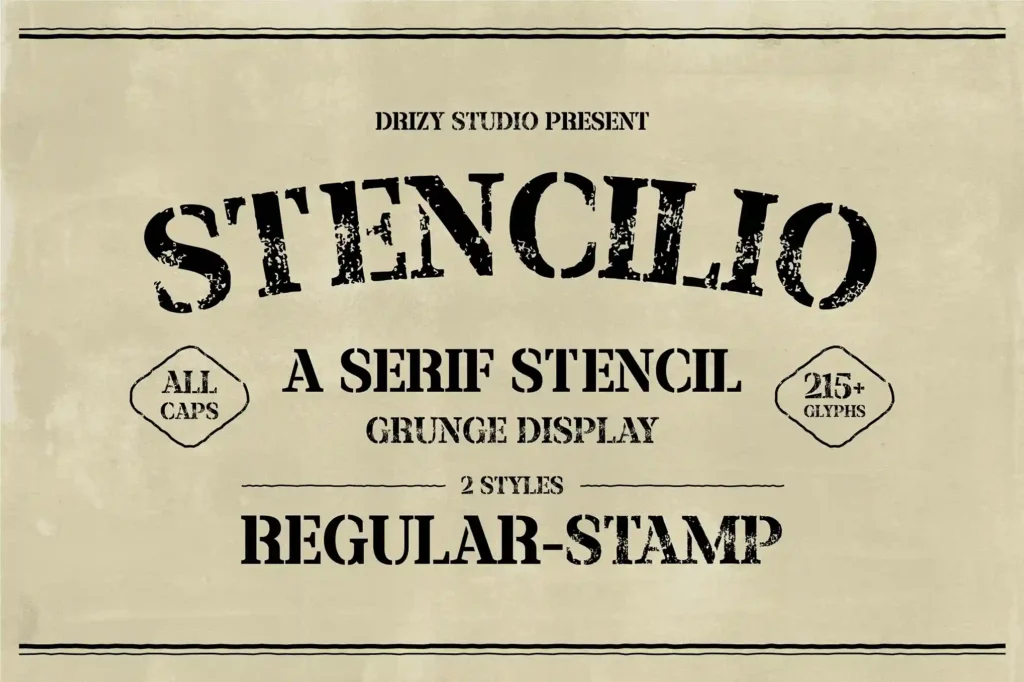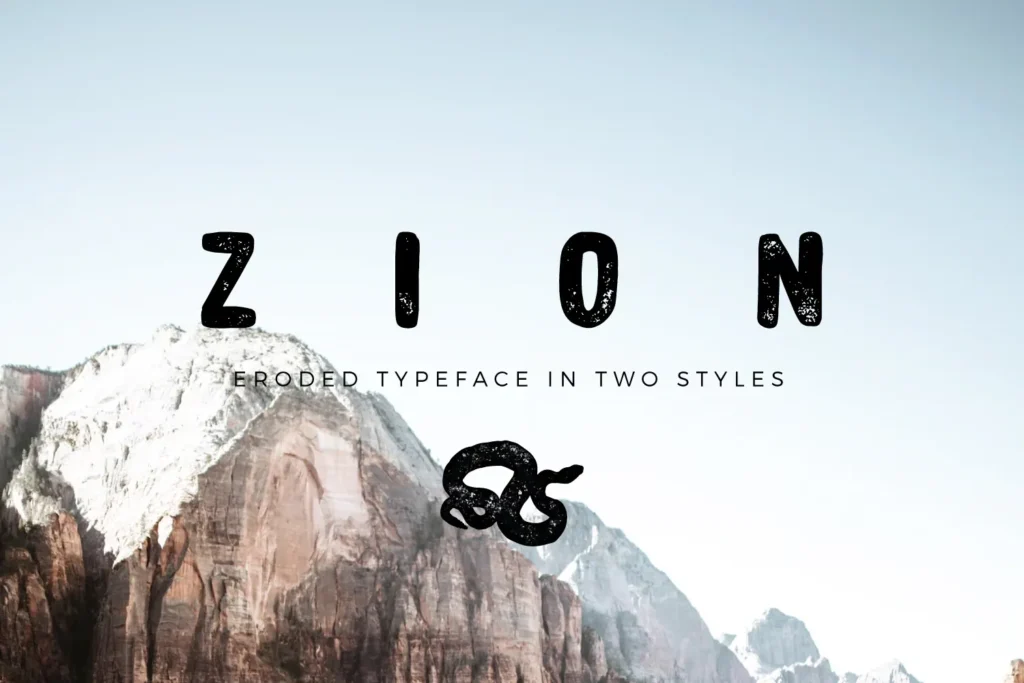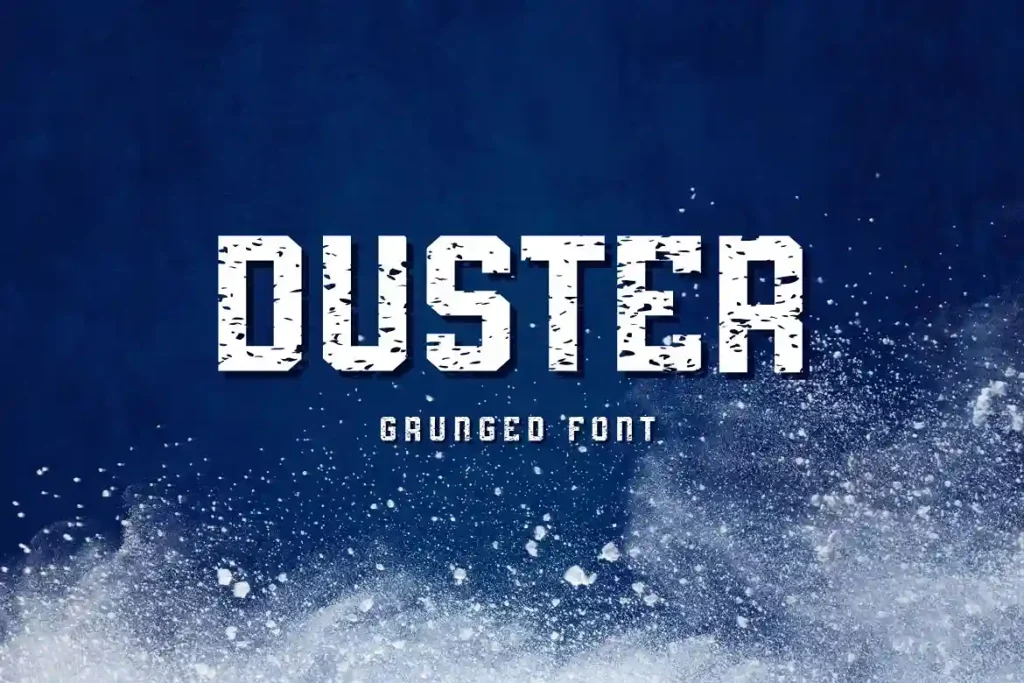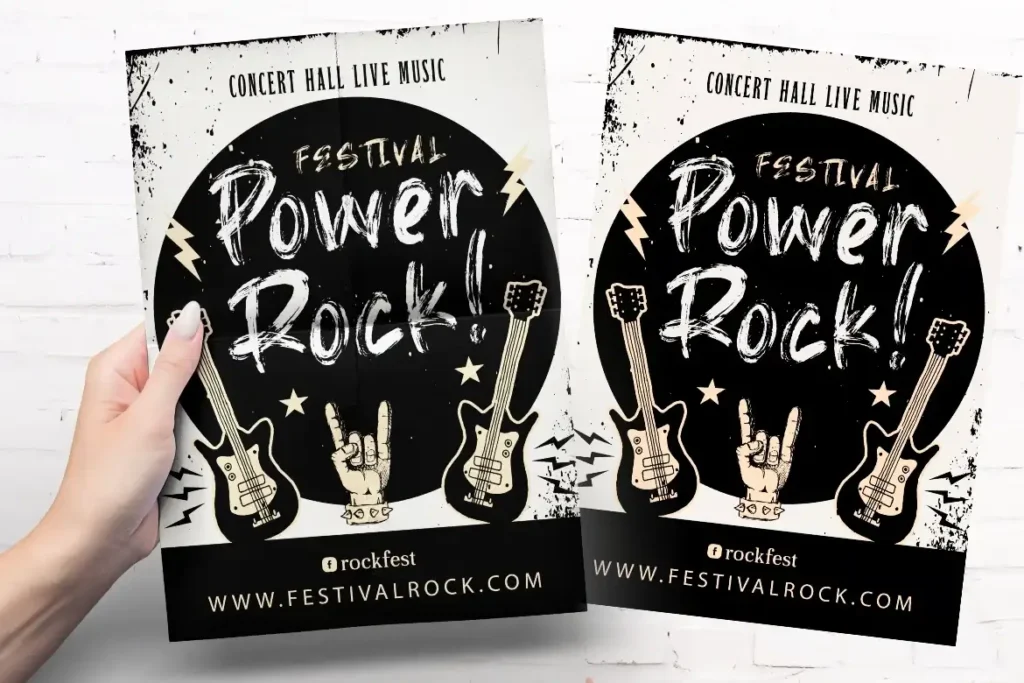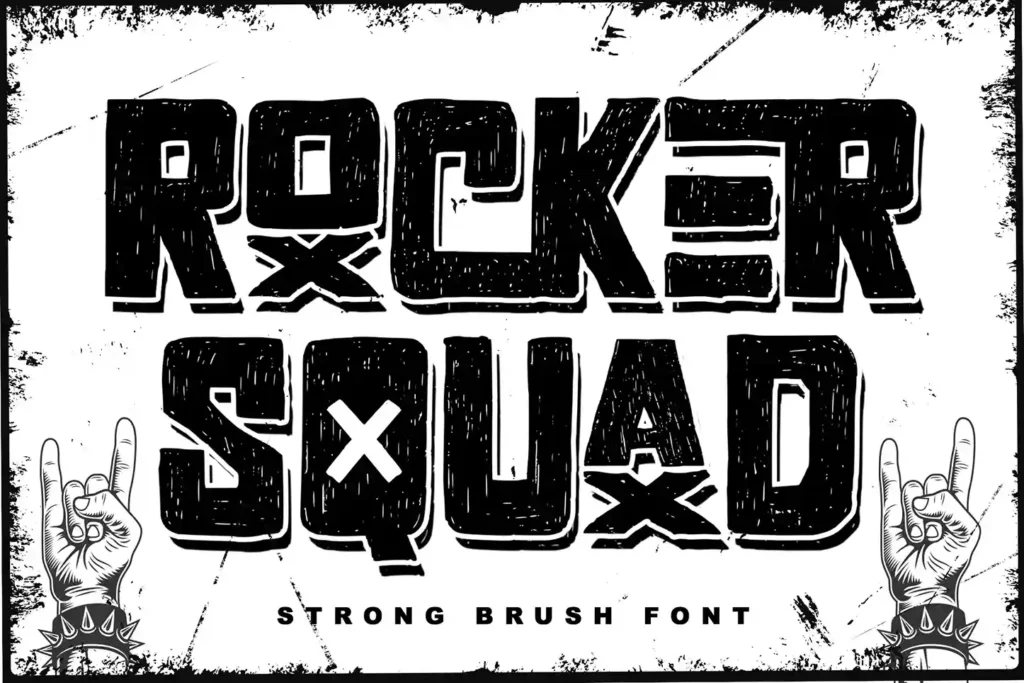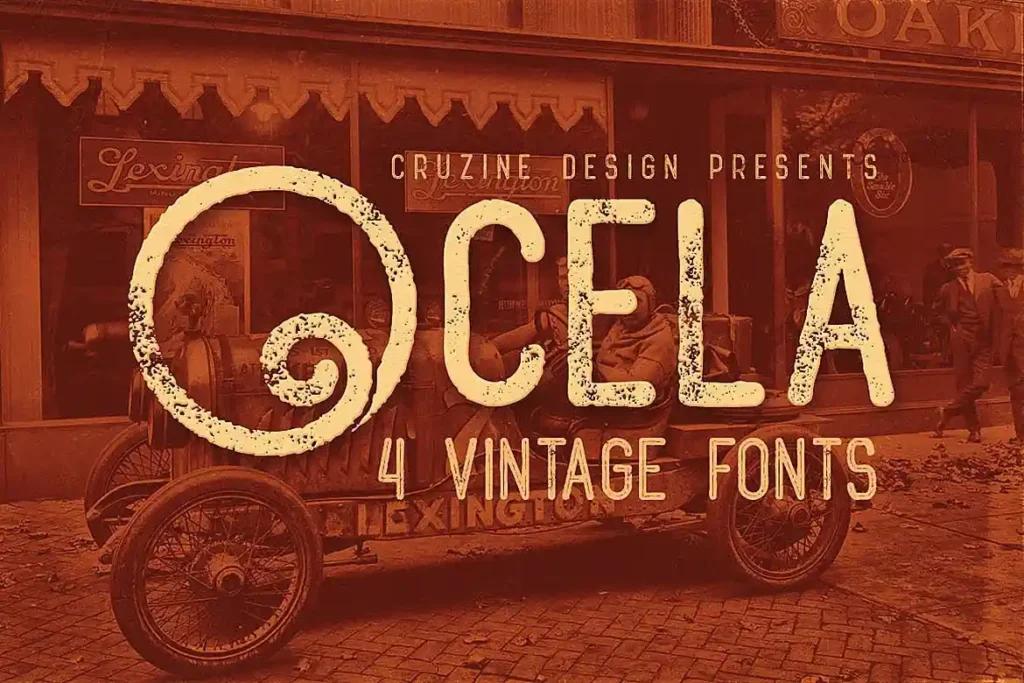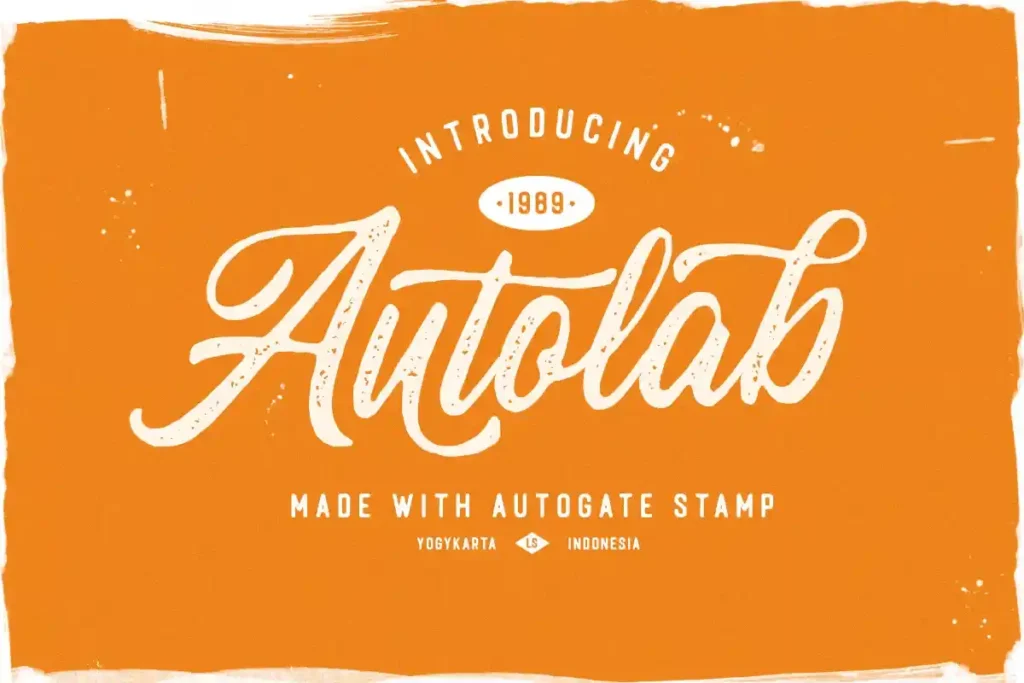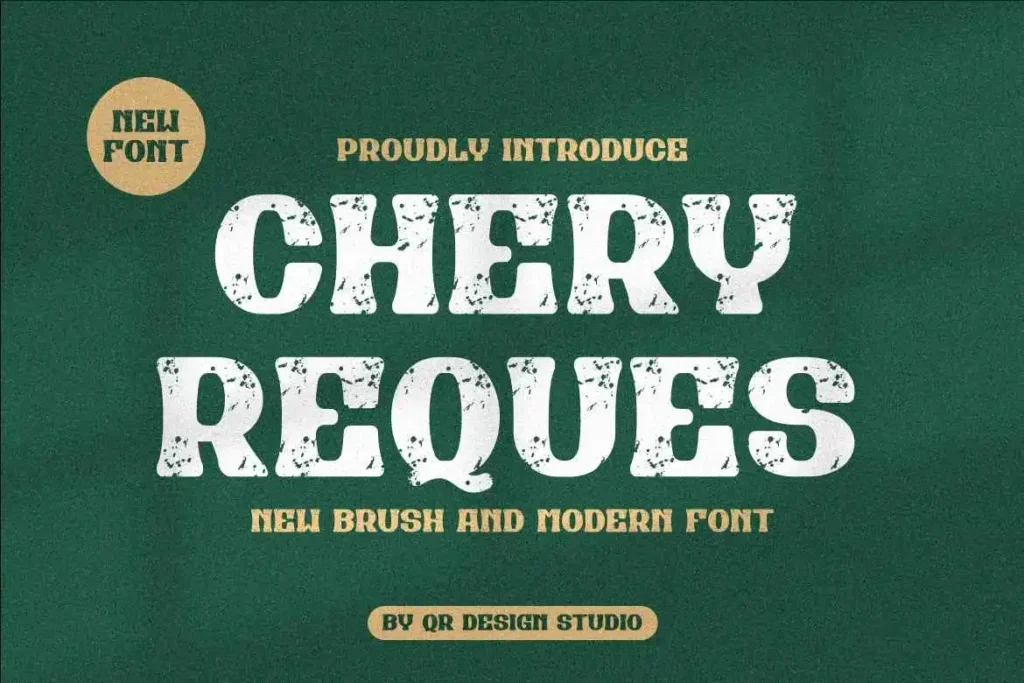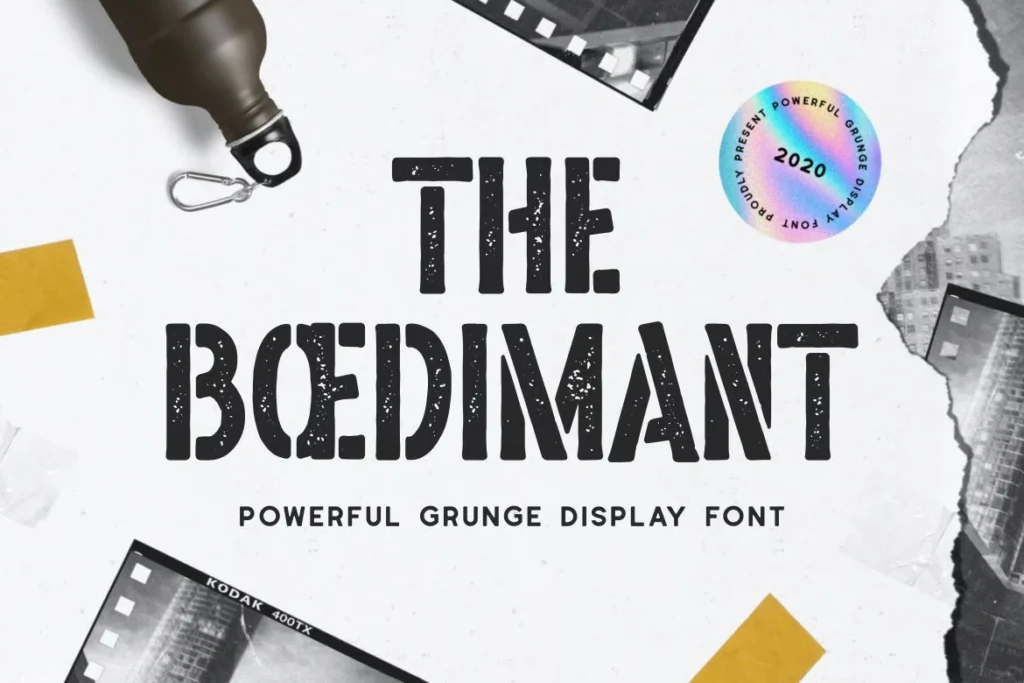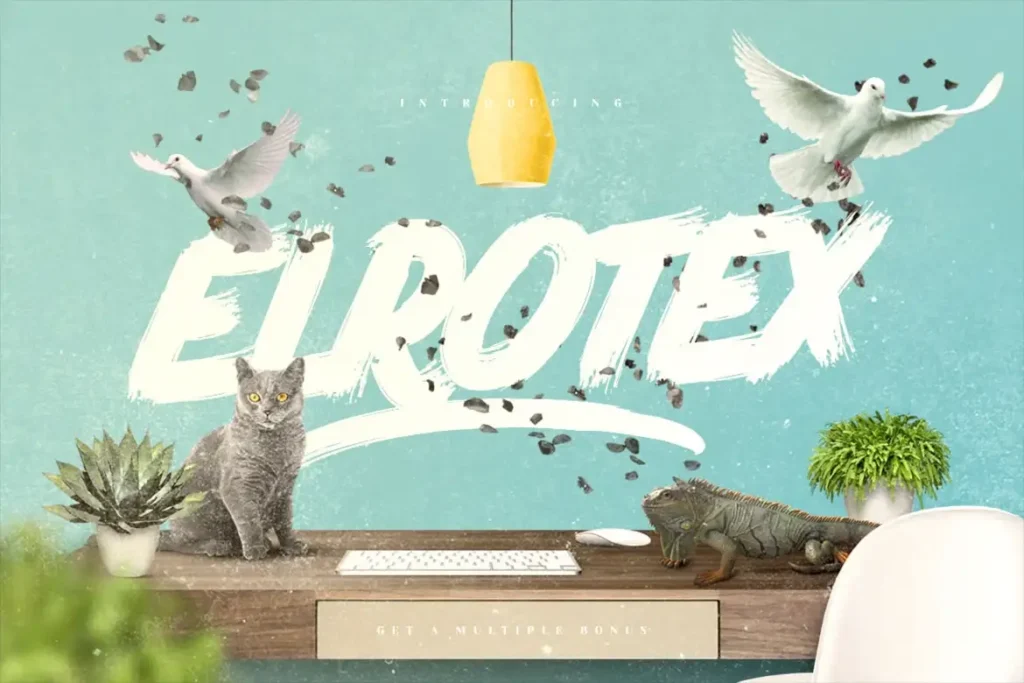
20 best Grunge Fonts You Can’t Miss
Grunge fonts are a fascinating subset of typography that stands out for their raw, edgy, and imperfect aesthetics. They often evoke a sense of rebellion, individuality, and nostalgia, making them a favorite for specific design projects that need to break away from the clean and polished look of modern styles. Let’s learn all about grunge fonts and discover 20 must-have choices for your next creative project!
What Are Grunge Fonts?
Grunge fonts are typefaces that look rough and worn. They often Imitate textures such as scratches, stains, ink splatters, or erosion, giving them a worn or weathered look. Unlike smooth sans-serif or serif fonts, grunge fonts thrive on imperfection and irregularity.
These fonts emerged in the 1990s, inspired by the grunge music scene driven by bands like Nirvana and Pearl Jam. Just as the music challenged polished mainstream culture, grunge fonts rebelled against the neat, symmetrical typography of the time. Their appeal lies in their ability to convey emotion, chaos, and authenticity.
Key Characteristics of Grunge Fonts:
• Distressed Textures: Worn, torn, or scratched effects.
• Asymmetry: Uneven letterforms that feel hand-crafted.
• Vintage Vibes: Often inspired by old signage, newspapers, or typewriters.
• Emotive Appeal: Perfect for communicating rebellion, nostalgia, or urban grit.
Why and Where Are Grunge Fonts Used?
Grunge fonts are versatile and can add life to designs that need a bit of edge or personality. Here’s why they’re loved and where they shine:
Why Use Grunge Fonts?
• Authenticity: They add a raw, human touch that’s hard to replicate with clean fonts.
• Nostalgia: Perfect for designs that need a retro or vintage feel.
• Visual Interest: The grunge textures make them naturally eye-catching.
Where to Use Grunge Fonts?
• Music Industry: Album covers, band merchandise, concert posters.
• Fashion: T-shirt designs, apparel branding with edgy or alternative vibes.
• Urban Design: Street art-inspired graphics, skateboarding brands, graffiti-styled ads.
• Event Promotions: Posters or flyers for rock concerts, underground events, or art shows.
• Web and Social Media: Edgy blog headers, Instagram posts, or YouTube thumbnails.
20 Best Grunge Fonts for Creative Projects
Here is a handpicked list of 20 of the best grunge fonts that offer the perfect blend of raw energy and artistic flair. Each font brings its unique style and versatility to help you enhance your creative projects. Let’s dive in!
1.  Fibre – Vintage Font
Fibre Grunge font
• Features: Fibre is a handwritten font designed to have a vintage, organic feel. It’s textured letters and subtle imperfections make it stand out as an artistic font. Each glyph looks like it was individually hand-crafted.
• Why Use It: This font is perfect for creating designs with a nostalgic and authentic feel. Its handwritten quality makes it great for projects that need a personal, emotional touch.
• Uses: Fibre works wonderfully for crafting retro-inspired posters, rustic product packaging, and logos for handmade or eco-friendly brands.
2. Duster – Grunged Font
• Features: Duster is a grunge-heavy display font characterized by its bold, roughened and raw aesthetic. Its letterforms are impactful and visually striking, with a rough, weathered finish.
• Why Use It: The roughened texture brings an edgy vibe to designs, making it suitable for urban or industrial themes.
• Uses: Ideal for creating bold headlines, music album covers and posters for high-energy events.
3. Autogate Stamp
Autogate stamp font download
By: Letterhend
• Features: Autogate Stamp is a rustic and rough script font that mimics the texture and look of rubber stamps. The uneven edges and raw strokes make it highly authentic.
• Why Use It: The stamped effect makes this font a perfect choice for vintage designs or projects that need an outdoorsy, adventurous vibe.
• Uses: This font works great for creating vintage postcards, event invitations, travel-themed branding, and logos with a handcrafted feel.
4. Zion | Eroded Grunge Font
Zion font download
By: _midnightgrim
• Features: Zion is a bold, hand-drawn display font with heavily eroded edges and an urban, gritty look. Its unique design adds depth and intrigue to any project.
• Why Use It: The eroded texture is excellent for projects that require a rebellious or avant-garde look, adding layers of texture to the overall design.
• Uses: Best for street art-inspired posters, edgy branding, and promotional materials for underground or alternative music events.
5. Elrotex Brush Font